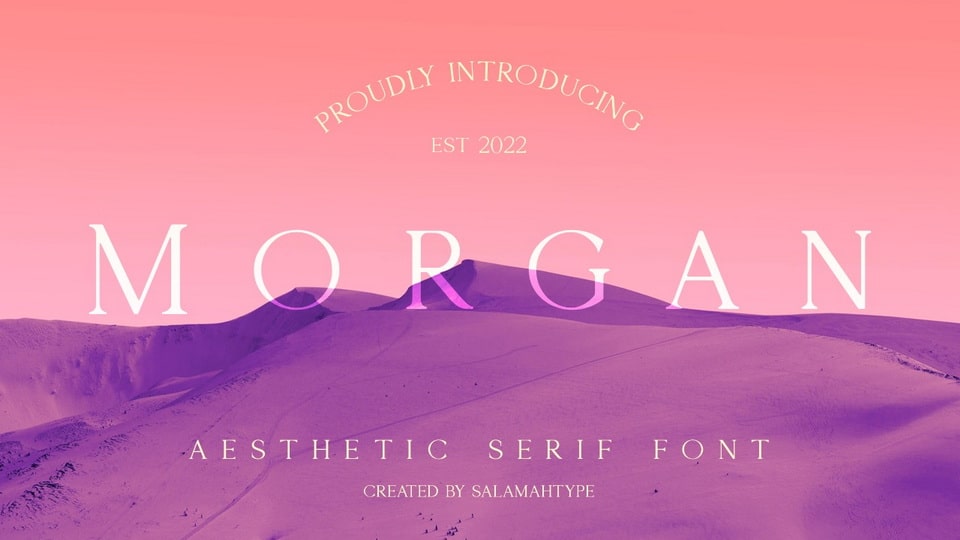
Download Morgan font, an elegant and clean serif typeface, consisting of 4 styles. It is suitable for a variety of your business needs, from product packaging, product branding and so on.